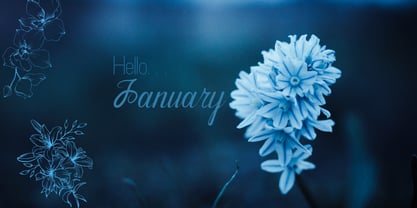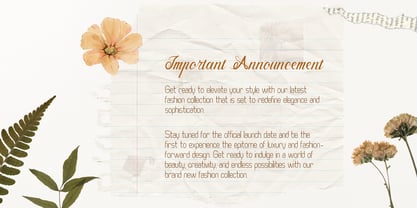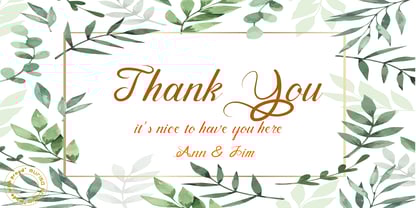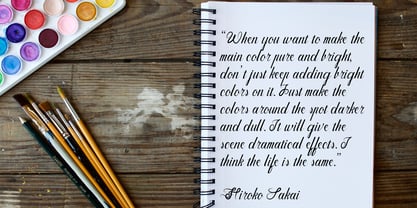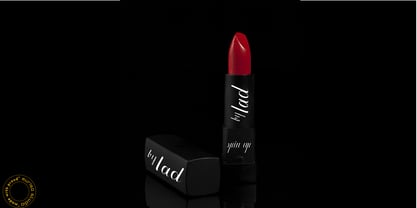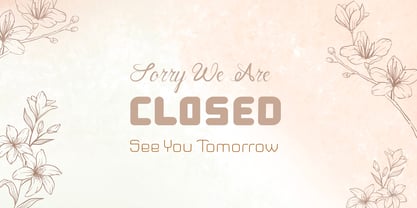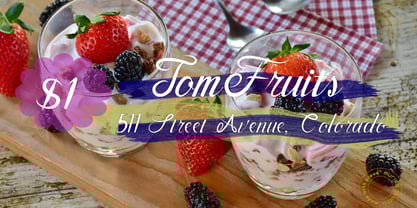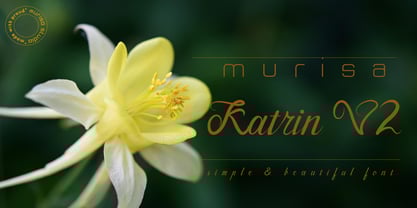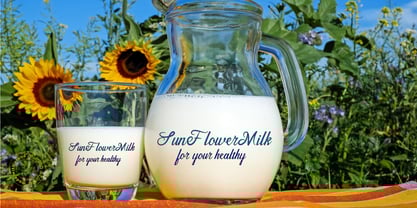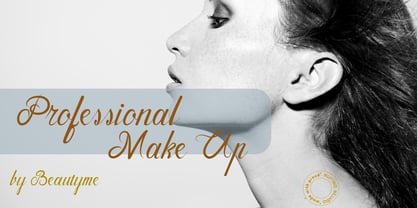
Murisa Katrin
by Murisa Studio
The Murisa Katrin Font Family was designed by Lili Sadili and published by Murisa Studio. Murisa Katrin contains 1 styles. More about this family
Murisa Katrin is our next font. Inspired by the simple cooperplate writing style, we created this font with a simple form, but still attracts the reader. Katrin is dedicated to those of you who want a minimalist, unique and attractive form. Katrin is perfect for those of you who are in the design business or product owners who want their products to look natural and elegant. Katrin is a charm of simplicity.
Designers: Lili Sadili
Foundry: Murisa Studio